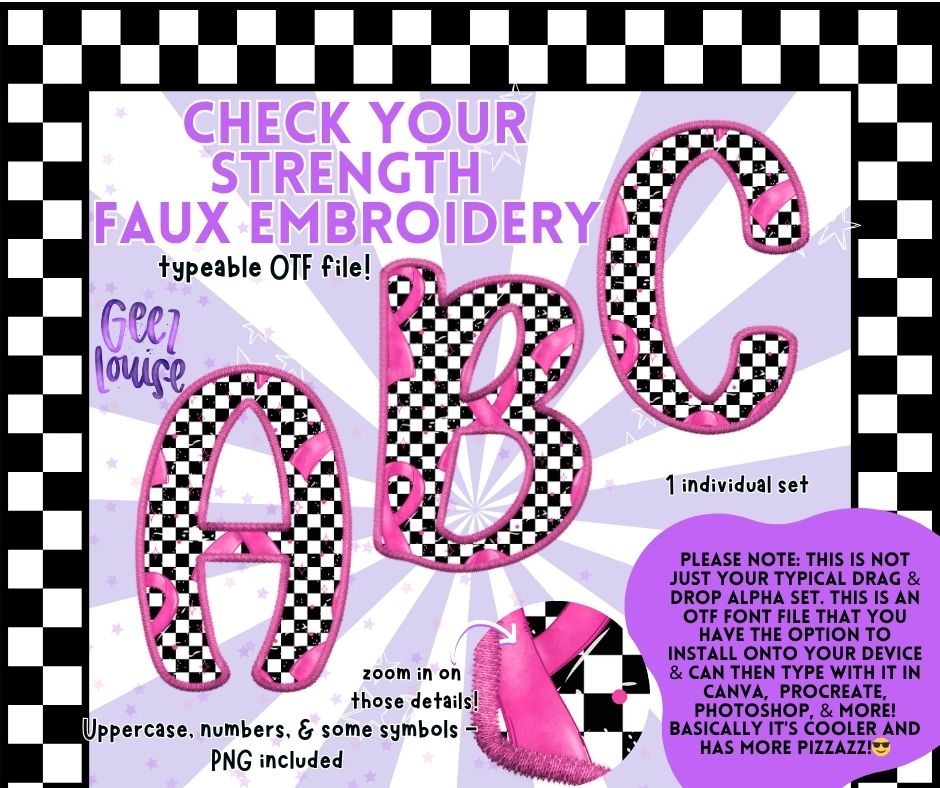
Check Your Strength Faux Embroidery Alpha – OTF Font + PNG
Check Your Strength Faux Embroidery Alpha – Awareness Ribbon Font with OTF & PNG
Empower your designs with bold energy and heartfelt purpose. The Check Your Strength Faux Embroidery Alpha is a checkerboard typeface featuring pink awareness ribbons and stitched embroidery trim. Perfect for Breast Cancer Awareness Month, survivor gifts, and designs that mean something.
✔️ Faux embroidery effect